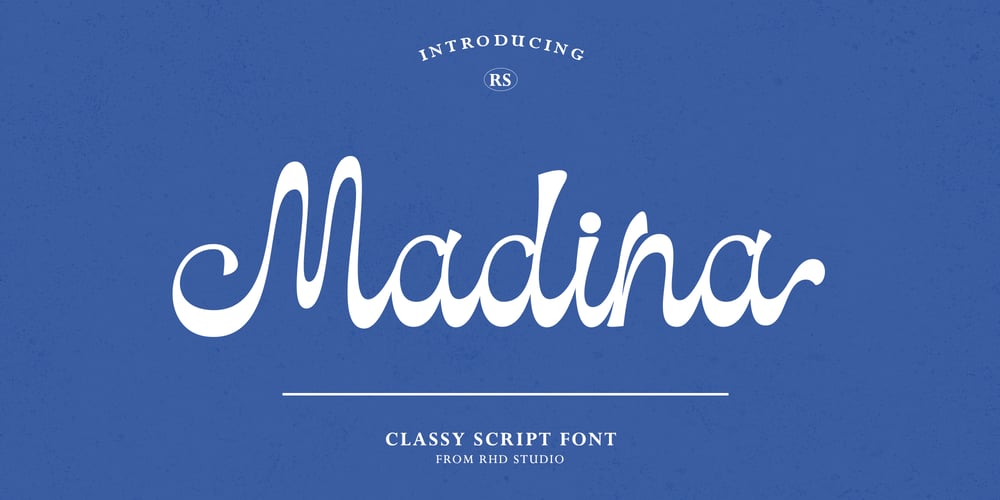
Madina Classic
Madina Classic font
Madina Classic Font Family was designed by Rahmad Rizky and published by Rhd Studio. Madina Classic contains 1 styles and family package options. Madina Script is a modern classic style script font inspired by classic handwriting in books. This font comes with style sets, Contextual Alternatives, ligatures and also multi-language support which adds aesthetics that make your work even more attractive.Madina Script is perfect for your creative projects such as Logotype, printed quotes, invitations, cards, product packaging, headers, Letterheads, Apparel, Web design, Magazines, Books, etc.